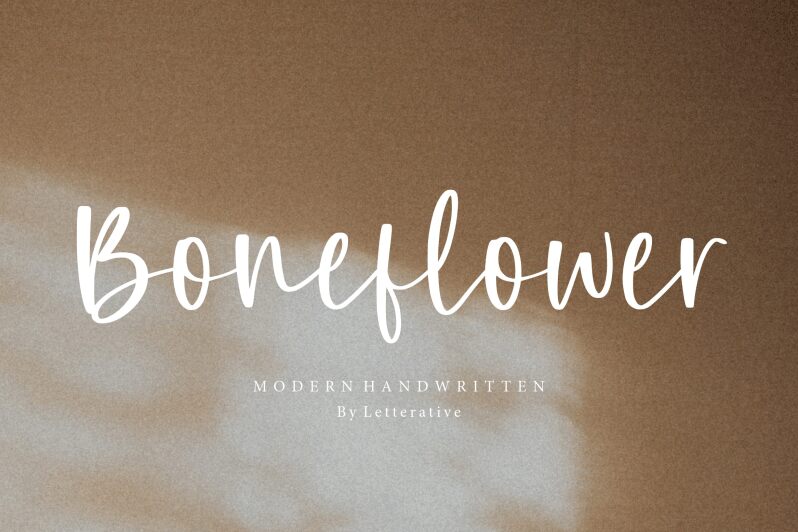
Boneflower
Boneflower font designed by Letterative Studio is a handwritten typography style with an organic flow. The casual aesthetic and contemporary design of this font make it attractive to viewers from different generations. It carries a modern appeal which usually looks familiar and pleasant to consumers.